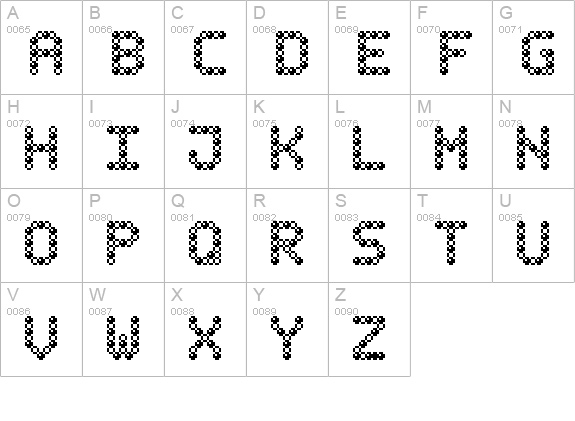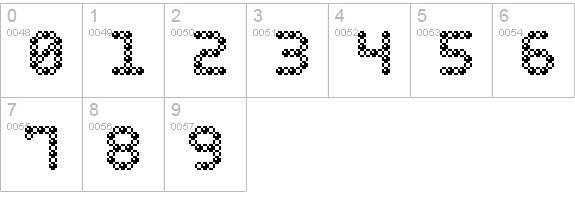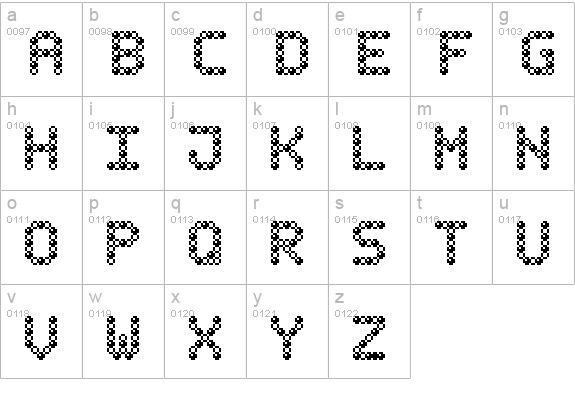
Bubble Pixel-7 Bead Font Details
Introducing the enchanting Bubble Pixel-7 Bead font, a delightful display of whimsy and playfulness. This unique typeface is guaranteed to captivate and charm with its bubbly round shapes and pixelated texture. With its distinct aesthetic, Bubble Pixel-7 Bead font is perfect for adding a touch of fun to various design projects. Whether you're creating eye-catching posters, cheerful invitations, or quirky branding materials, this font will effortlessly inject a sense of joy and creativity into your work. The Bubble Pixel-7 Bead font is freely available to download at FontsMarket.com. This means that you can easily access this delightful typeface without any cost, making it an excellent choice for both personal and commercial projects. This font's versatility truly shines through as it can be used in various contexts. From children's books and toys to digital interfaces and social media graphics, Bubble Pixel-7 Bead font adds a delightful touch that is sure to put smiles on faces. Designed with meticulous attention to detail, Bubble Pixel-7 Bead font showcases each character with precision, ensuring legibility without compromising on its playful charm. Its bold and vibrant appearance combined with its pixelated texture gives any design a modern and unique look that is bound to stand out from the crowd. So, if you're ready to infuse your designs with a touch of whimsy and enchantment, look no further than the Bubble Pixel-7 Bead font. Download it for free at FontsMarket.com and let your creativity take flight with this delightful typeface that is sure to bring a smile to anyone's face.